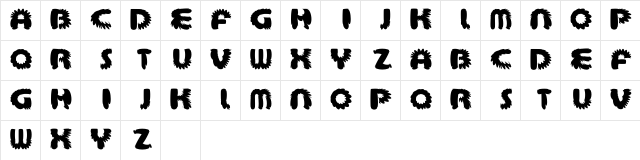
aztec bouffon Regular Font Preview
aztec bouffon Regular
aztec bouffon Regular Font Details
Design Context for aztec bouffon Typeface
aztec bouffon is a composed and adaptable typeface that performs quietly and consistently across a wide range of design contexts.